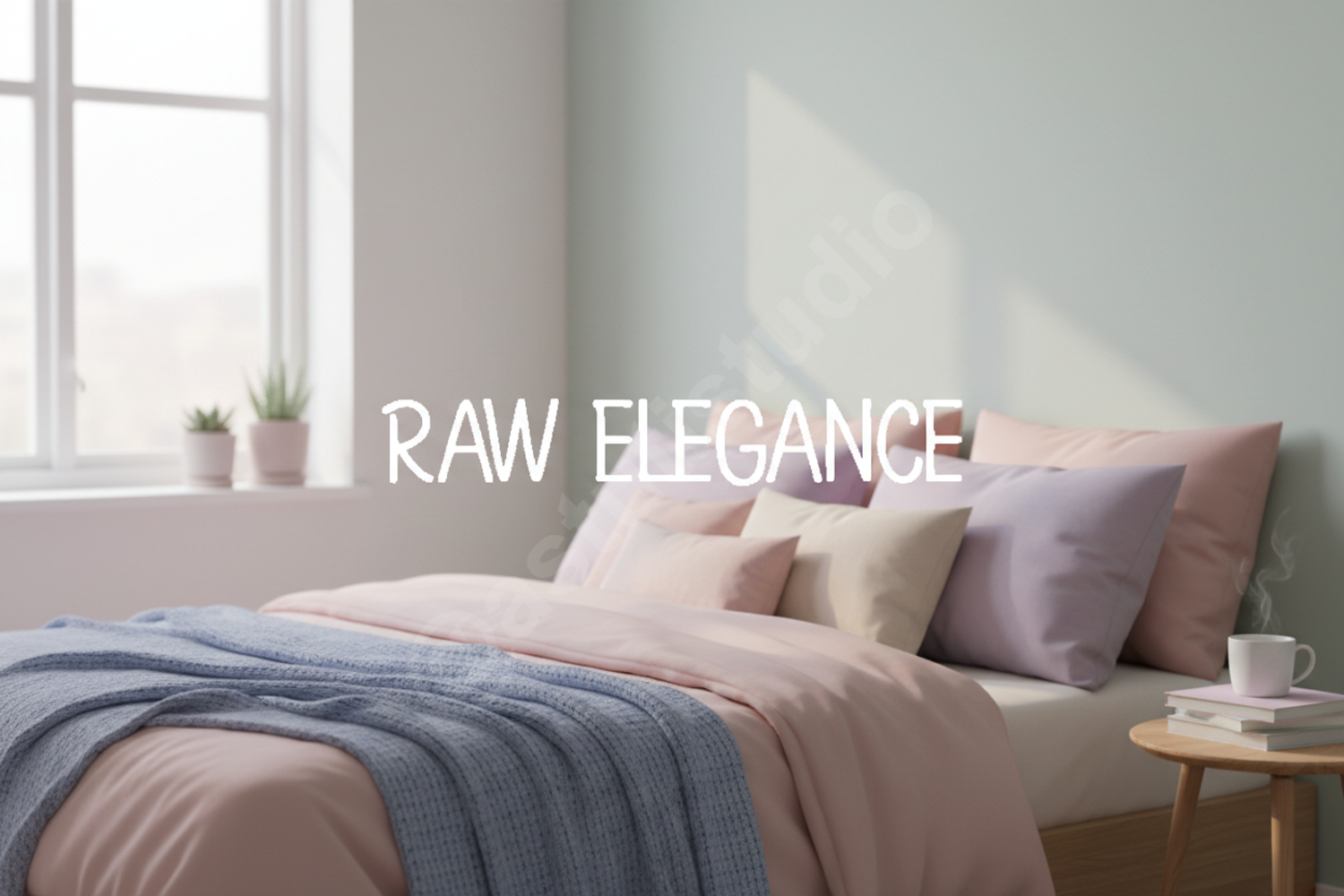
Kebese - Sophisticated Modern Serif Typeface
Kebese
Kebese is a masterfully crafted serif font that blends classic proportions with a contemporary edge. Designed for those who appreciate high-end aesthetics, this typeface offers a perfect balance of sophistication and readability. Whether you are working on a minimalist project or a bold editorial layout, Kebese provides the premium quality necessary to elevate your design work.
- Luxury Branding and Logo Design: Create a lasting impression with a refined visual identity.
- Wedding Invitations and Stationery: Add a touch of timeless elegance to special occasions.
- Editorial Design: Perfect for high-fashion magazines, book covers, and digital articles.
- Social Media Graphics: Stand out in feeds with professional and clean typography.
- Product Packaging: Enhance the perceived value of your products with premium labeling.